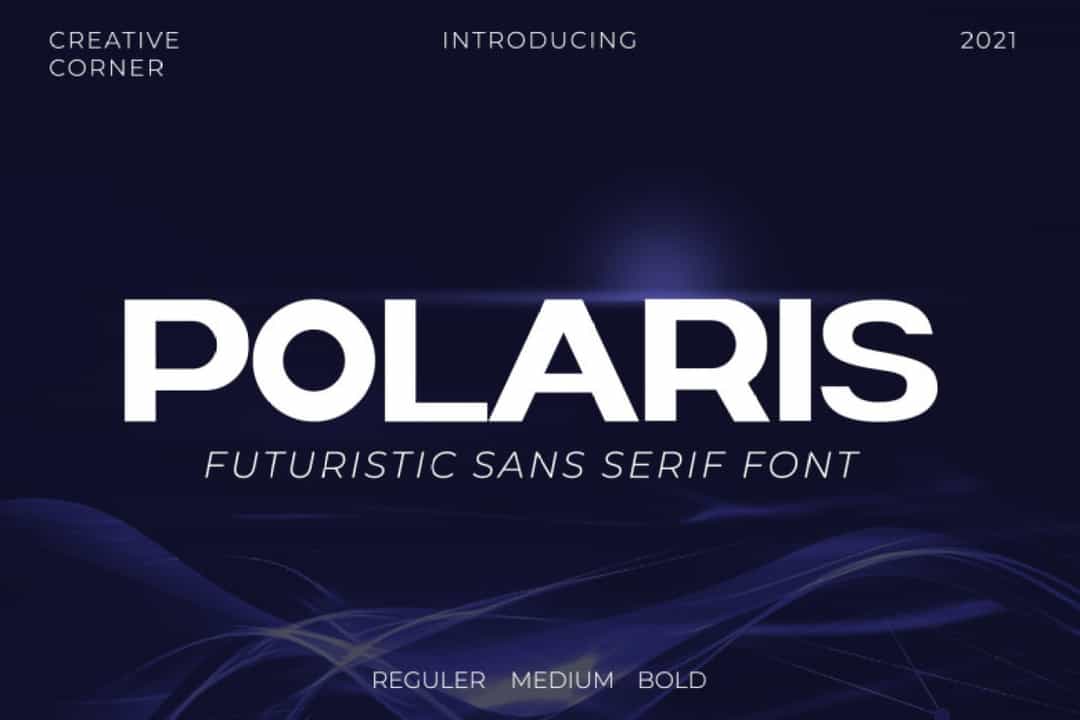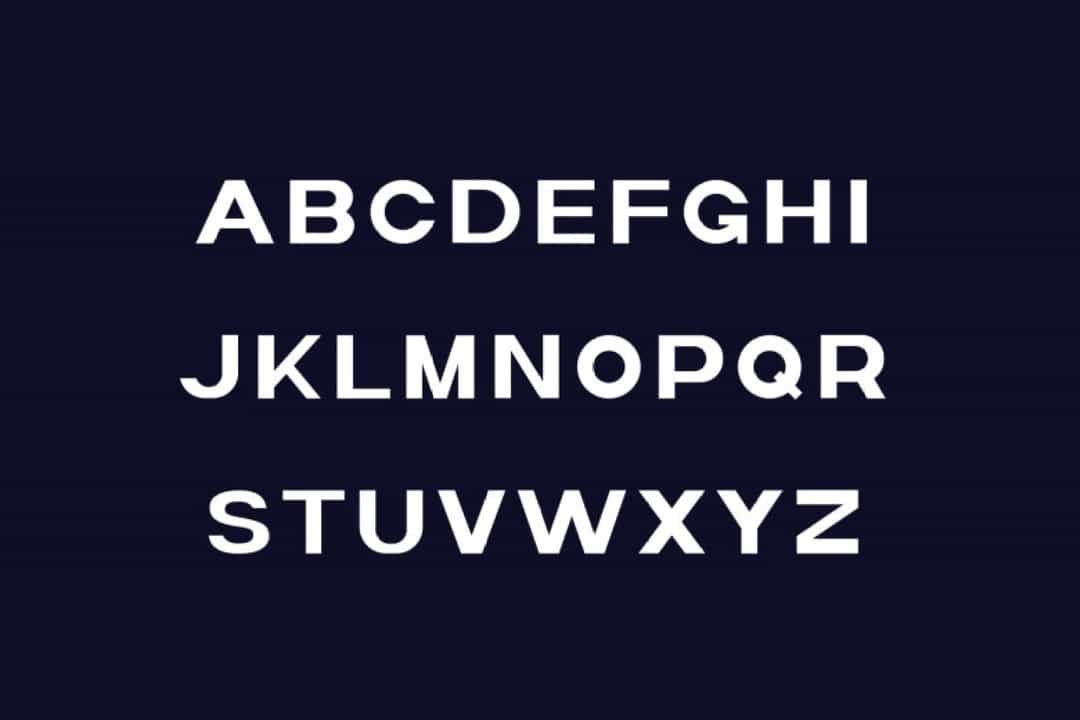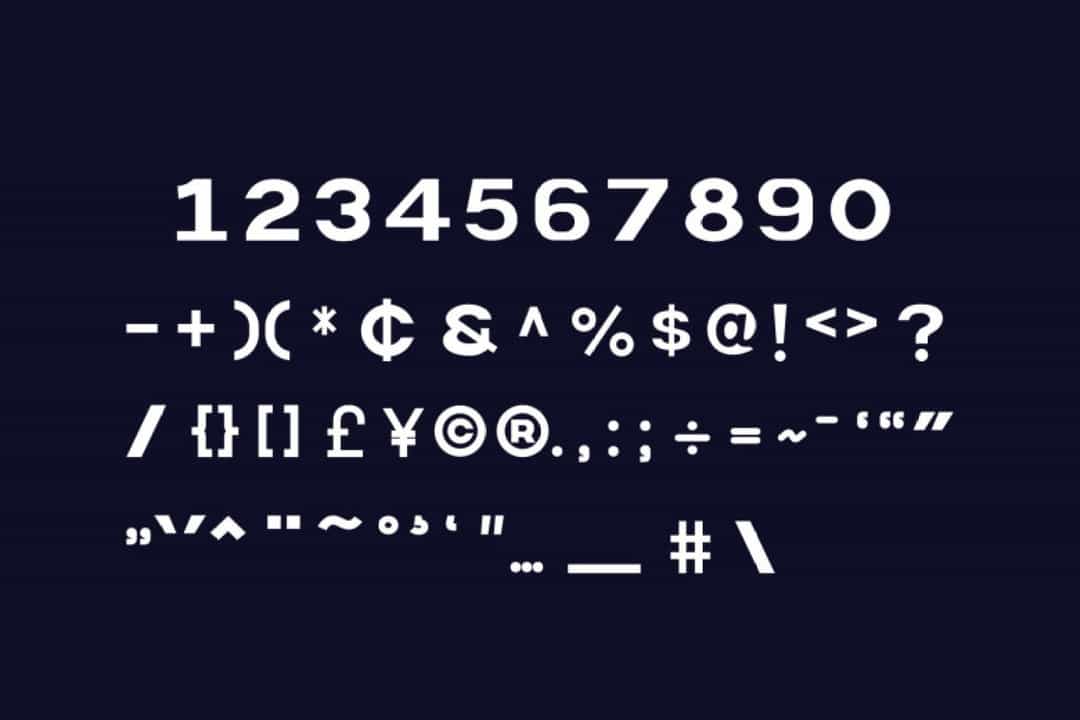
Polaris Font is an elegant and striking futuristic Sans Serif font, suitable for use across a range of designs for creative inspiration and to make an impressionful statement! Use it in any project that catches your eye to witness how well it stands out!